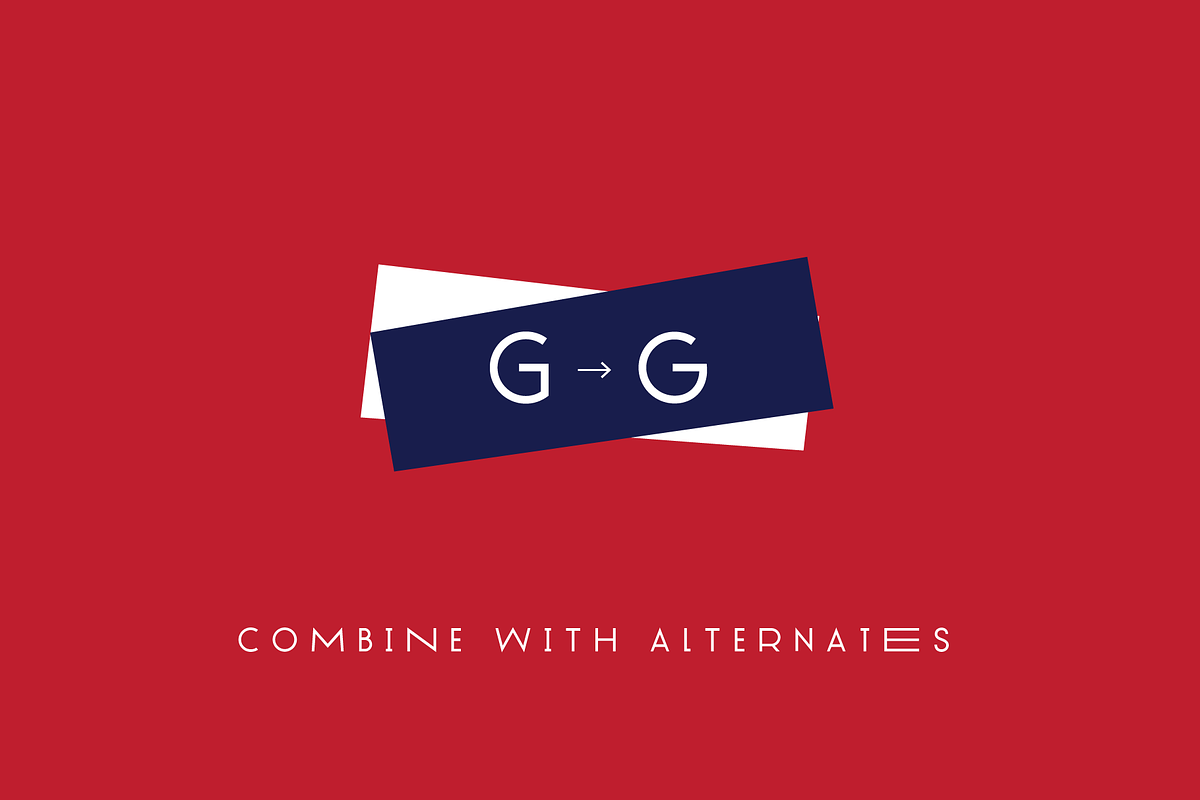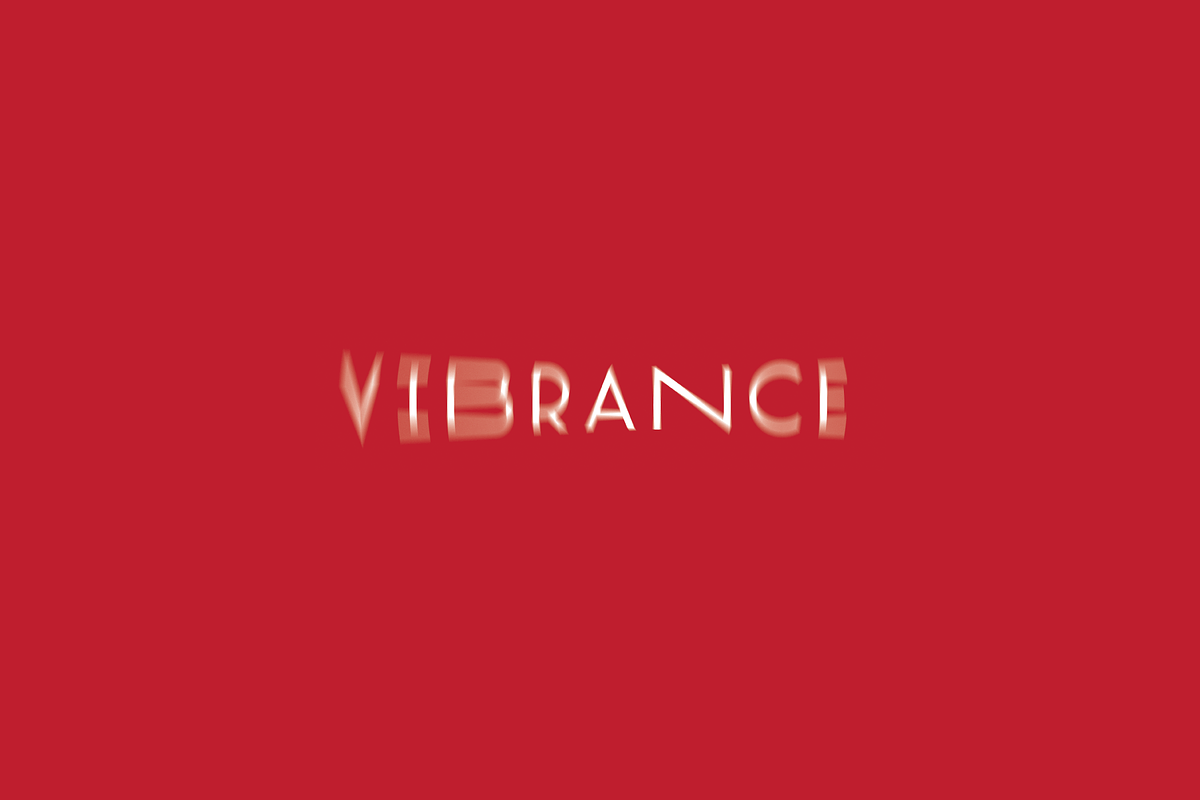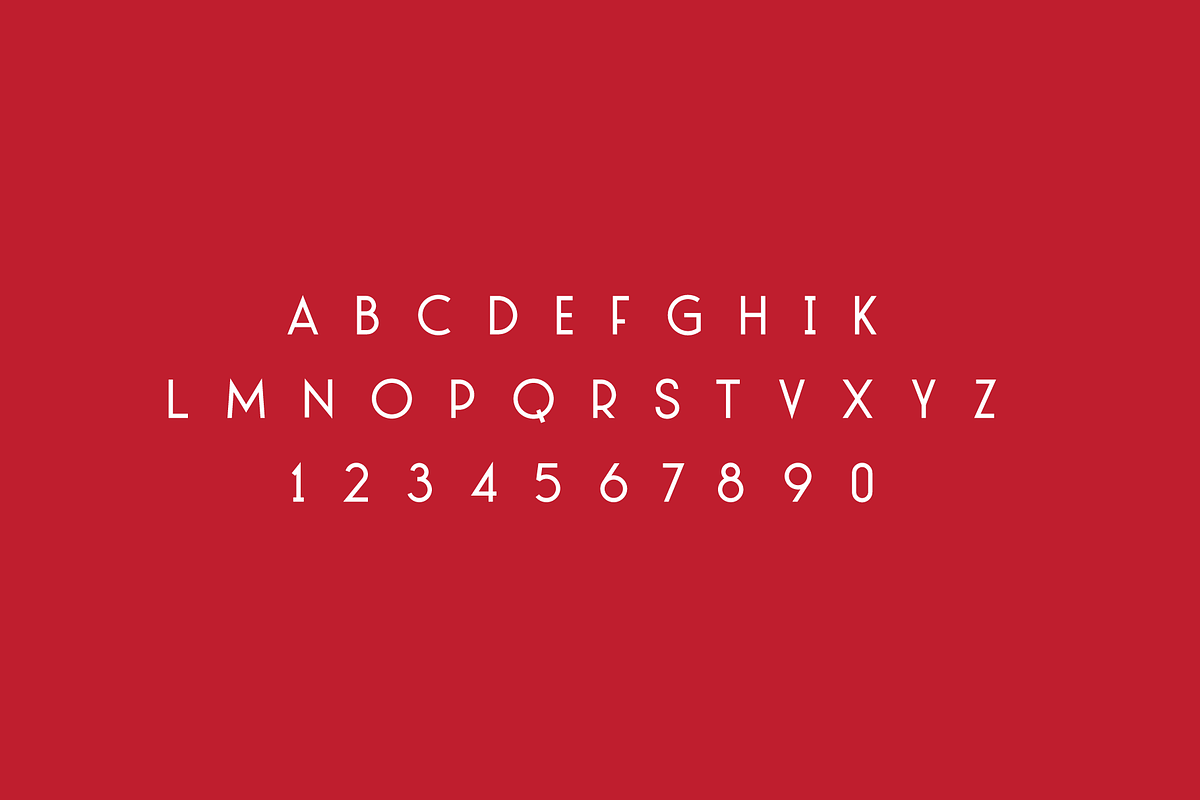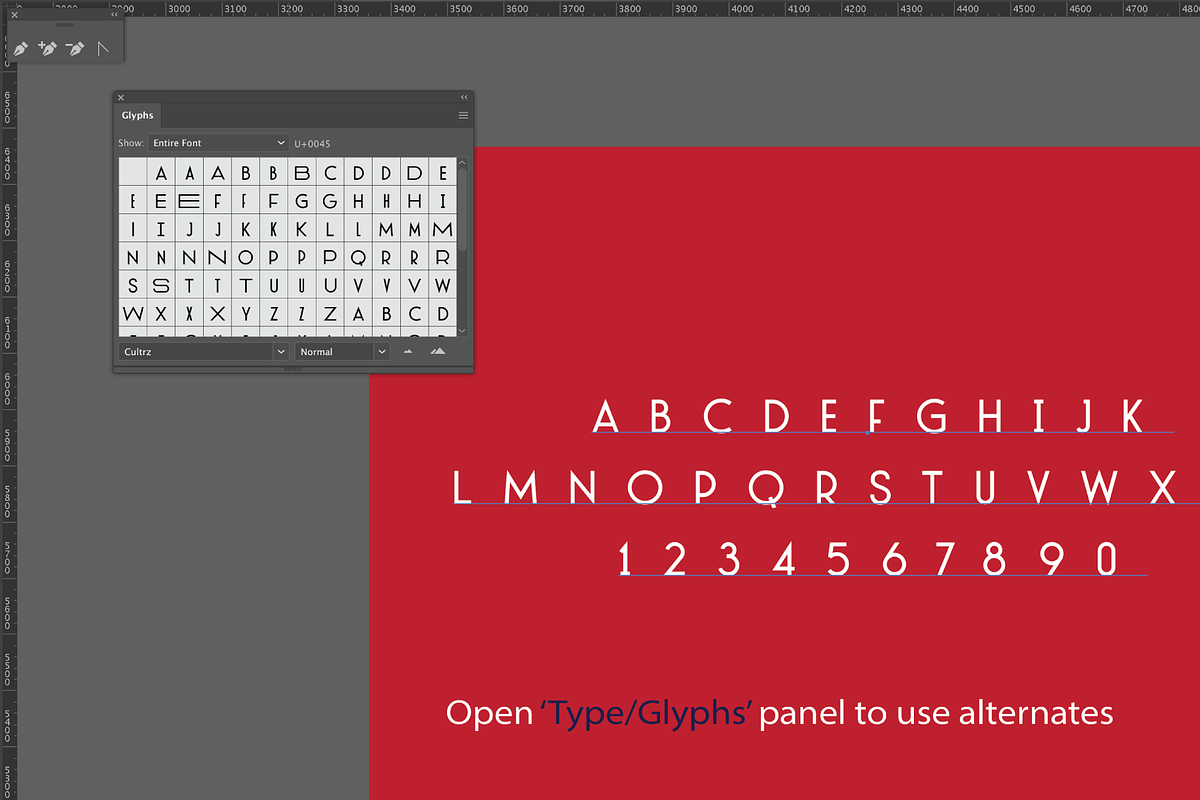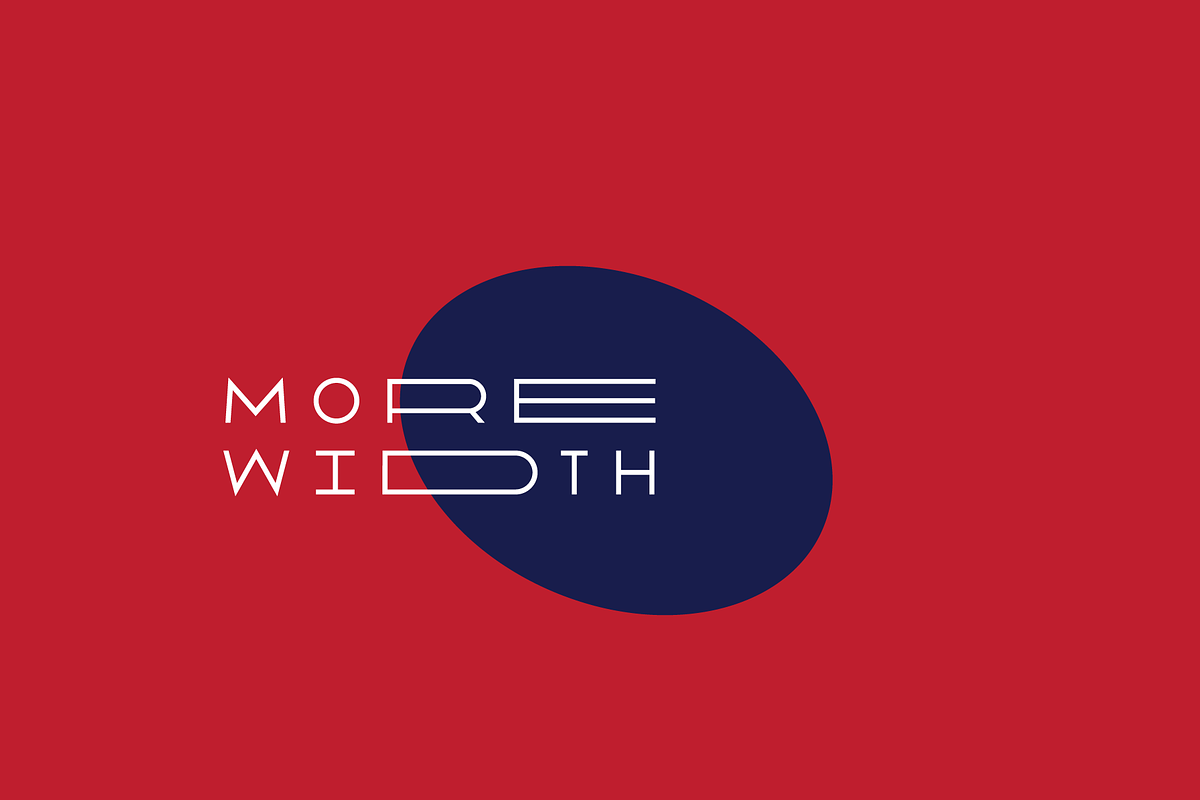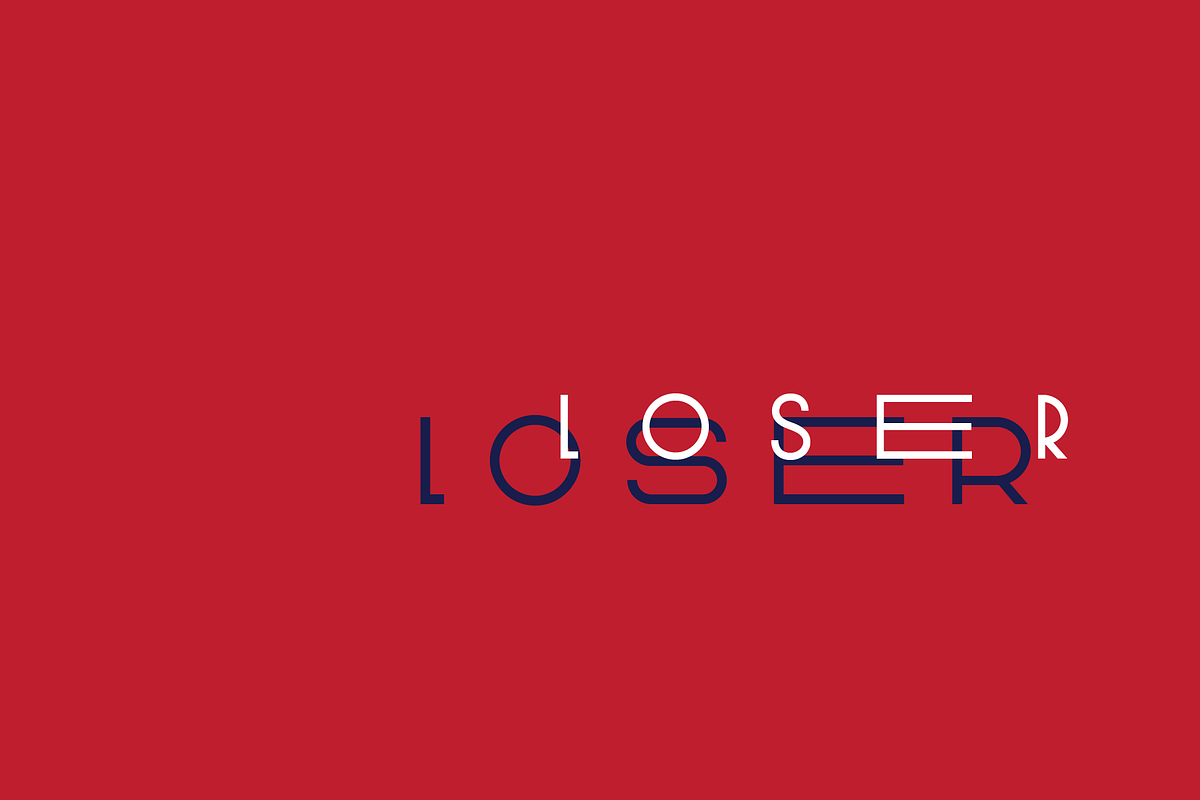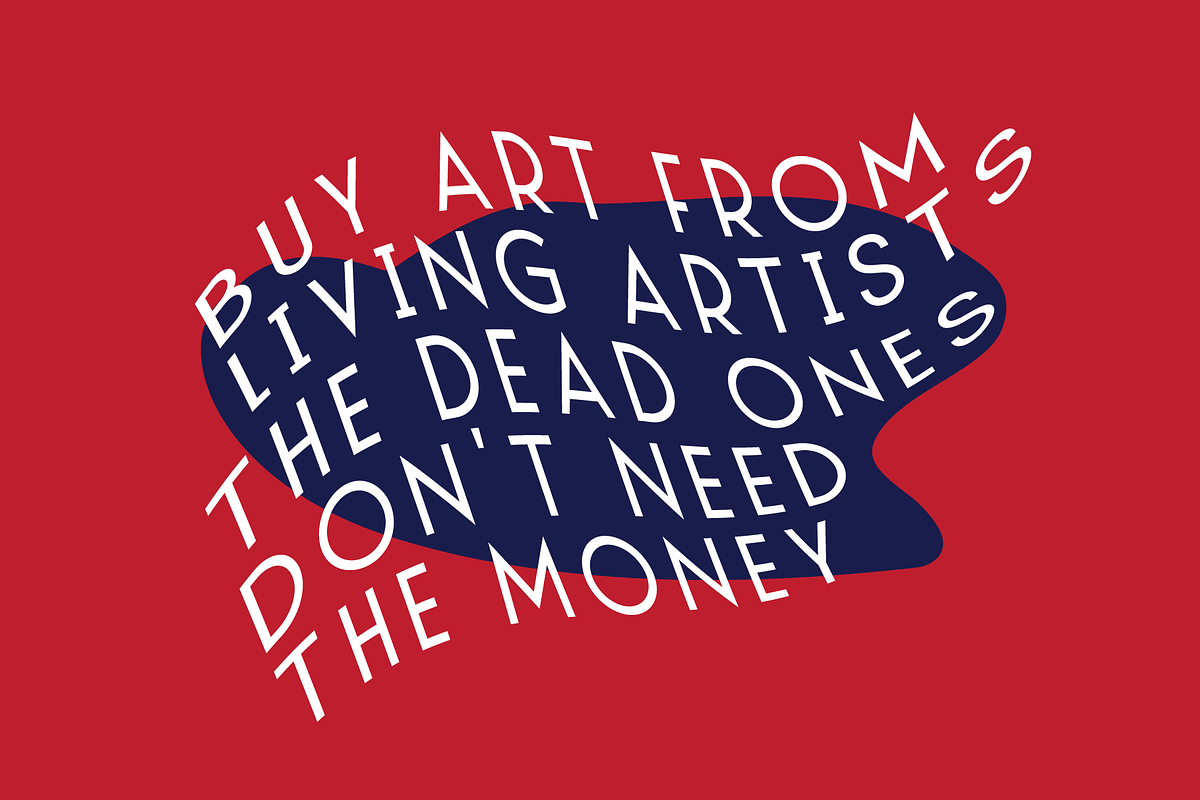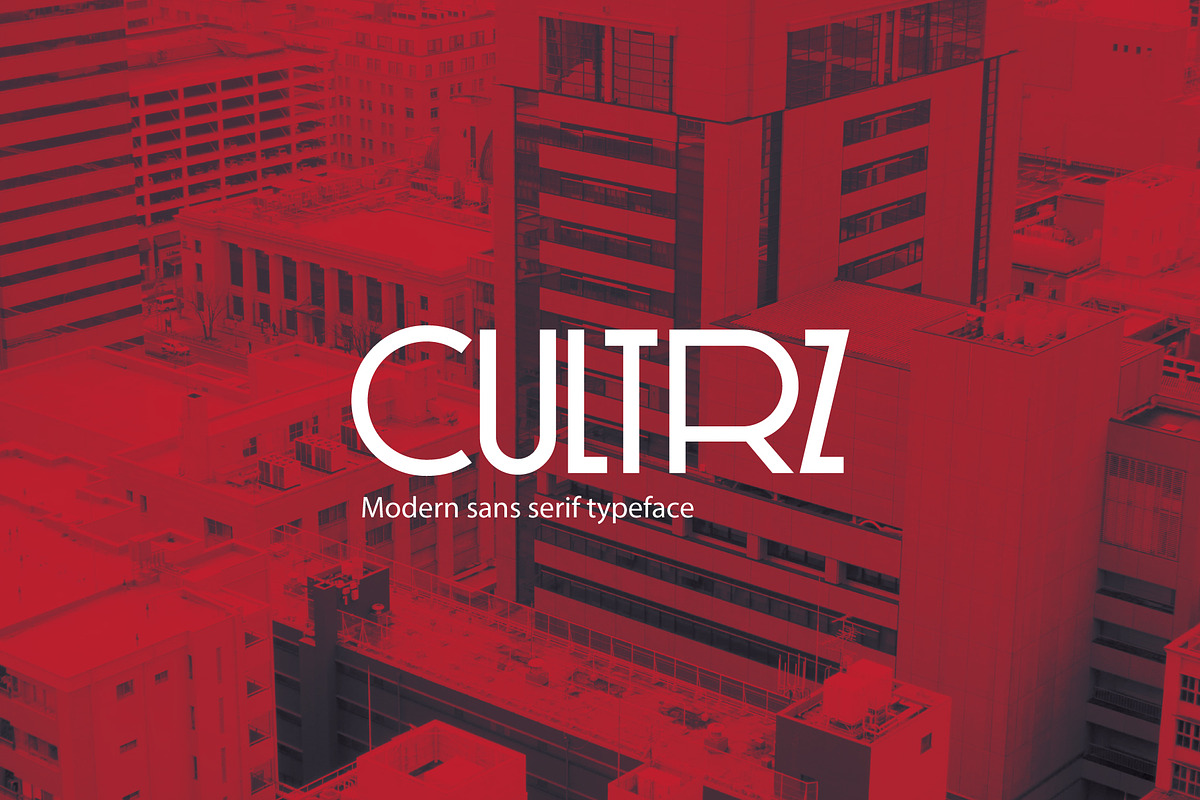
Cultrz Typeface
"Cultrz" is geometric display font. .
Different width alternates
Numbers & basic punctuation
Cultrz Typeface by kulturrrno fits naturally into Branding, posters, packaging, typography.